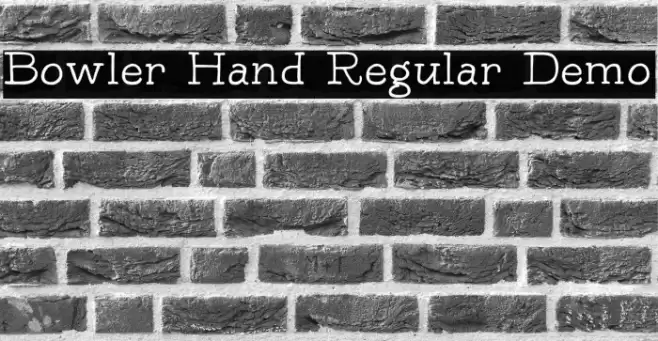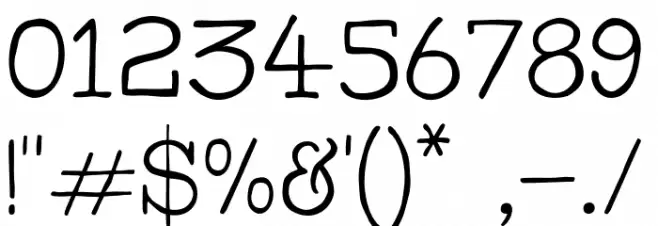
Bowler Hand Regular Demo Font
Bowler Hand Regular Demo Description
This font exhibits a playful and casual handwritten style, characterized by its slightly irregular strokes and whimsical curves. The uppercase letters maintain a consistent height, while the lowercase letters have a charming, uneven baseline that adds to its informal appeal. The numerals are rounded and friendly, complementing the overall aesthetic. Special characters are creatively designed, with a unique flair that enhances the font's personality. The strokes are moderately thick, providing good readability while retaining a hand-drawn feel. This font is perfect for projects that require a personal touch, such as invitations, greeting cards, or branding for creative businesses.
A playful, handwritten font with whimsical curves and a casual style from Regular fonts.
- Proposed Projects: Ideal for invitations, greeting cards, creative branding, and personal projects.
- Overall Style: Casual, Playful
- Use Case: Invitations, Greeting cards, Creative branding